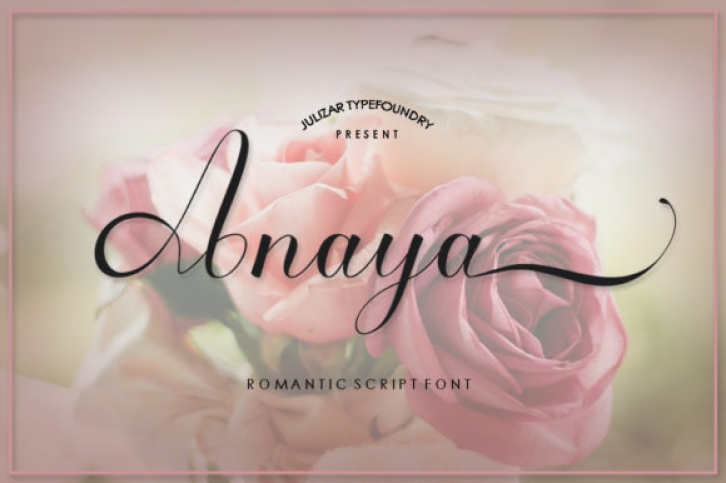
Anaya is a smooth, elegant and flowing handwritten font. It has well balanced characters and as a result, it fits a wide range of designs. Fall in love with its incredibly versatile style and use it to create spectacular designs!